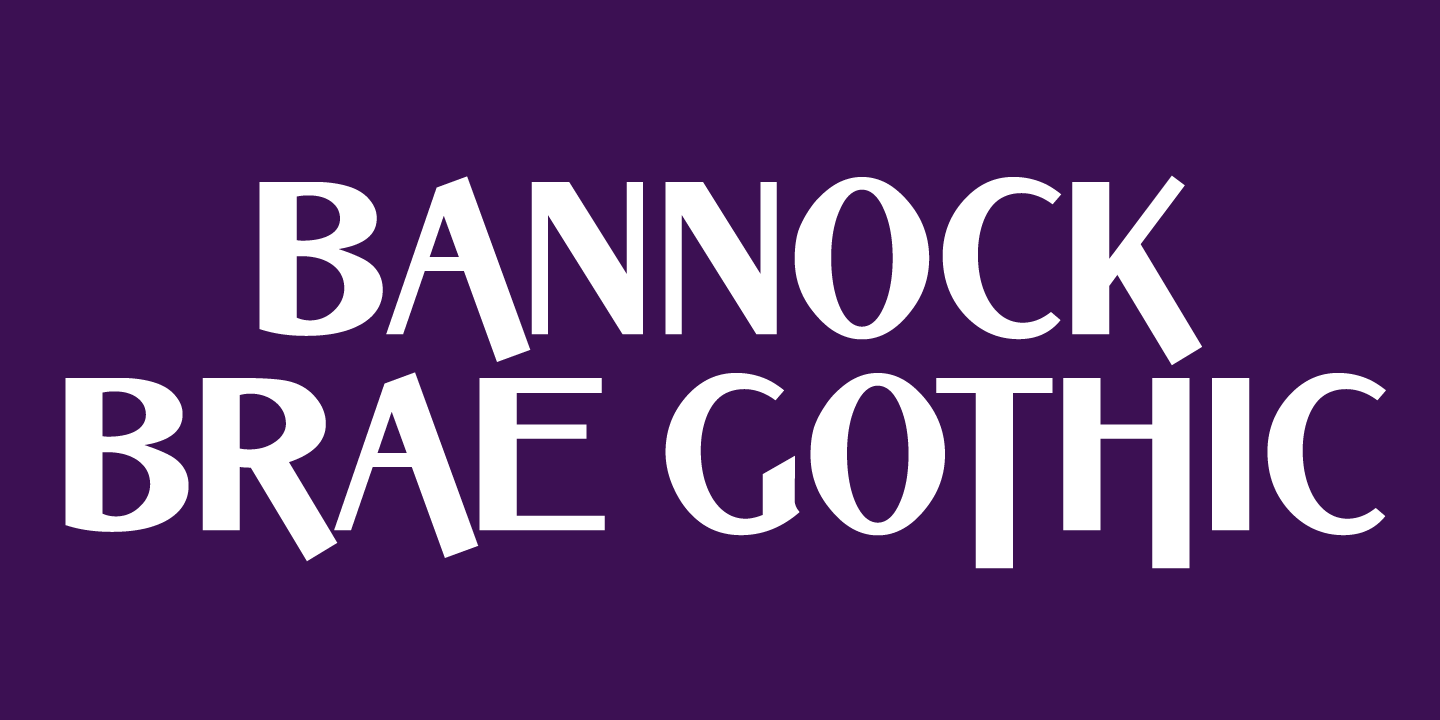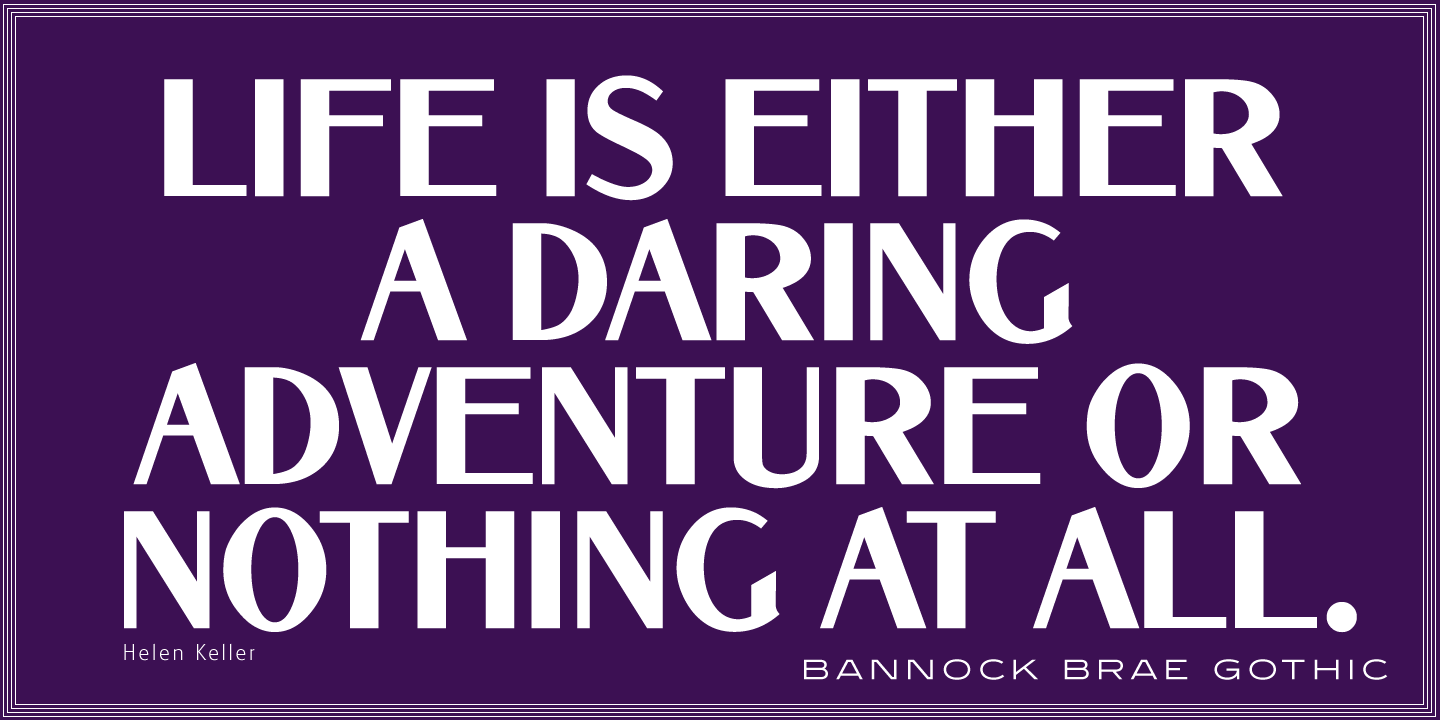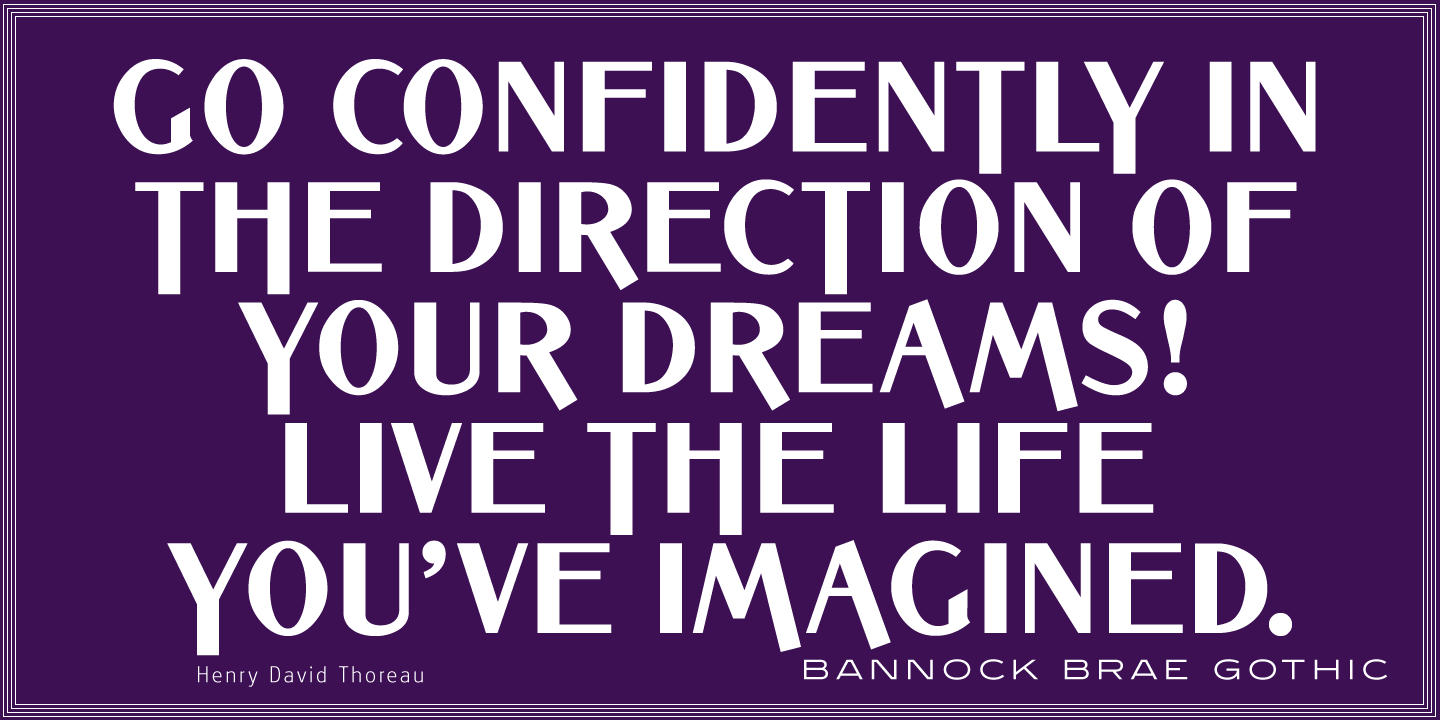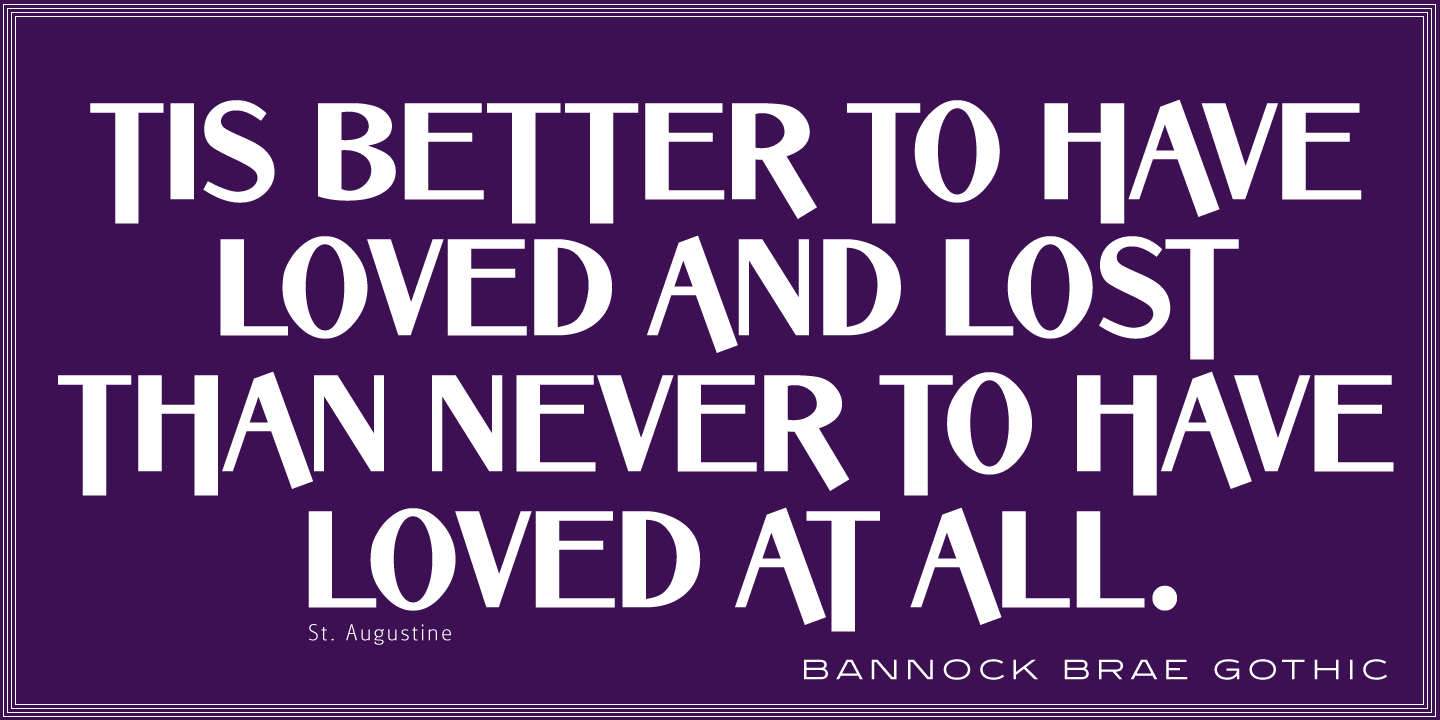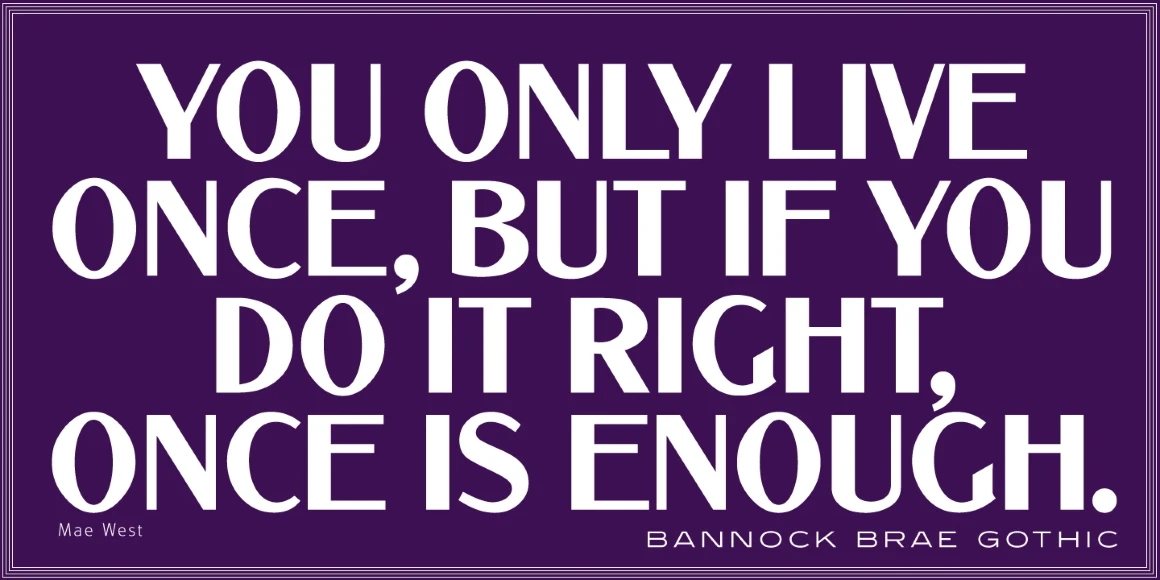
Bannock Brae Gothic
From Red Rooster Collection
Bannock Brae Gothic is a sans serif typeface. It is an original creation of Steve Jackaman (ITF) and was created for the Red Rooster Collection in 1999. The typeface was loosely inspired by a typeface from an old obscure wood type specimen book from the turn of the 20th century. Due to its turn-of-the-century roots, Bannock Brae Gothic has an informal 1920’s art deco look. It finds an ideal home in lighthearted projects concerning crafts, food, festivals, and music, but its alternates still give it the flexibility to showcase a classic and timeless feel in any project.